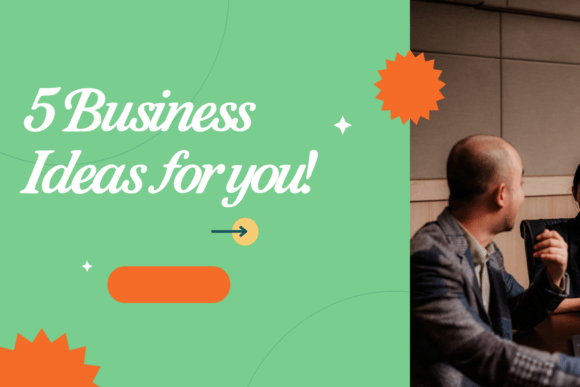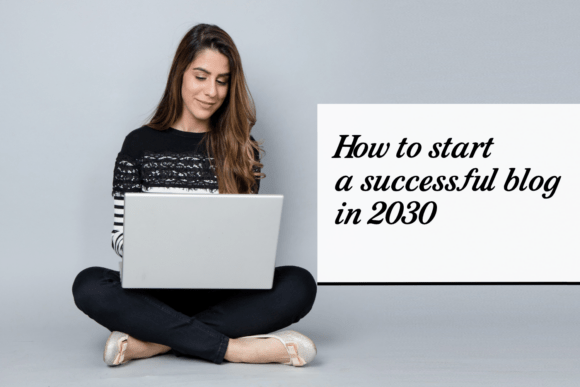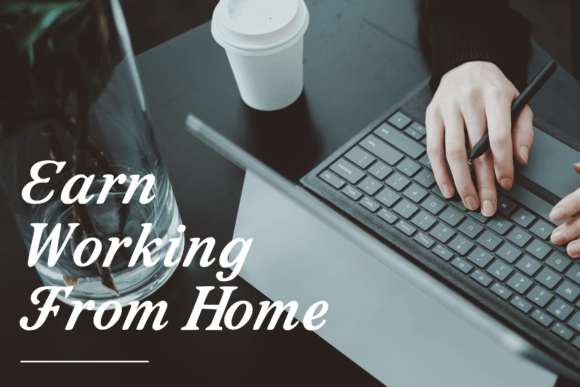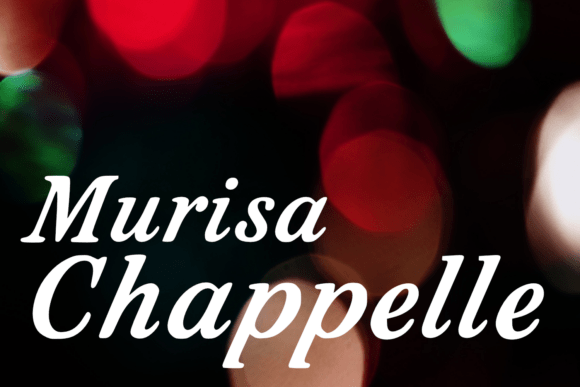
Introduction to Murisa Chappelle Font
✨ Step into a world of refined sophistication with Murisa Chappelle, a high-impact italic serif typeface crafted for visionaries, tastemakers, and brands that demand presence.
Every curve whispers elegance, every stroke commands attention 💎 Distinctive Features: Slanted with purpose, the italic forms evoke motion, grace, and confidence.
Key Features of Murisa Chappelle Font
Why Choose Murisa Chappelle Font?
Murisa Chappelle Font offers exceptional quality and versatility, making it a valuable addition to your design toolkit. Whether you’re creating for personal projects or commercial use, Murisa Chappelle Font delivers professional results.